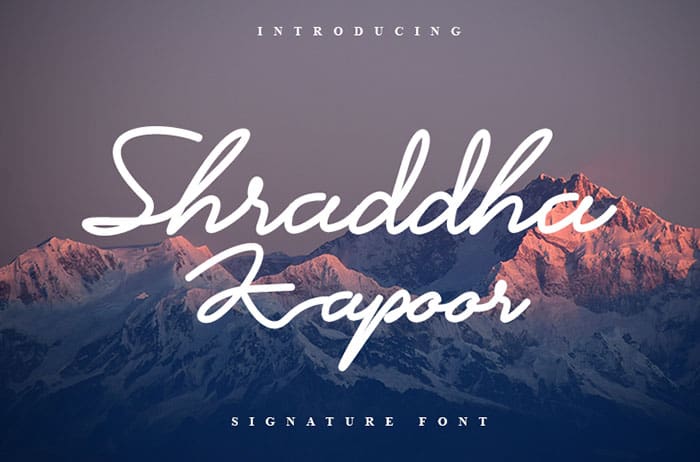
Shraddha Kapoor Script Font
Shraddha Kapoor simplifies elegance into one truly outstanding script font. This font perfect fit for all of your logos, branding, social media, and crafty DIY projects. Designed this font by Inermedia Studio. You can also search more freeĀ Script Fonts.